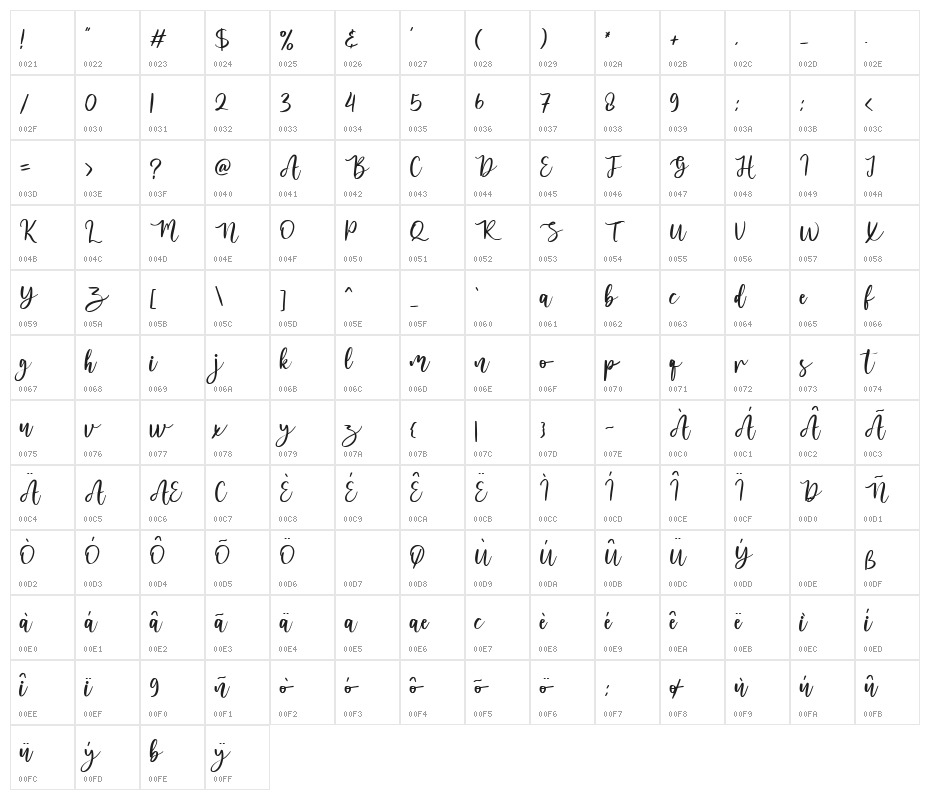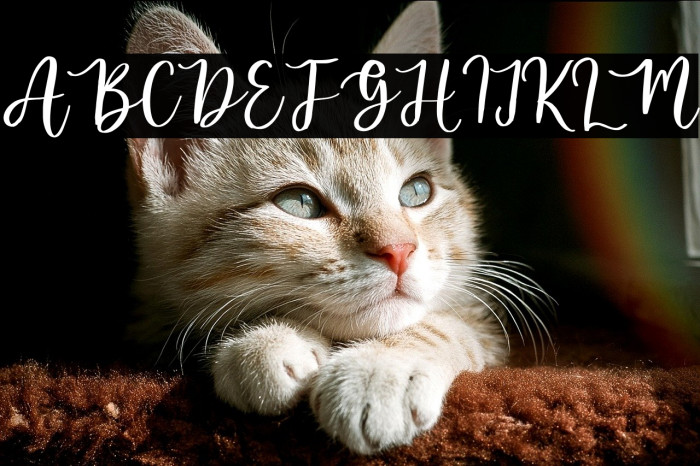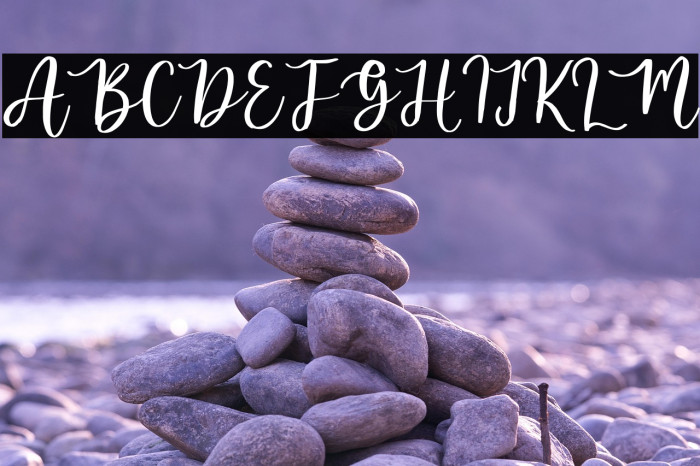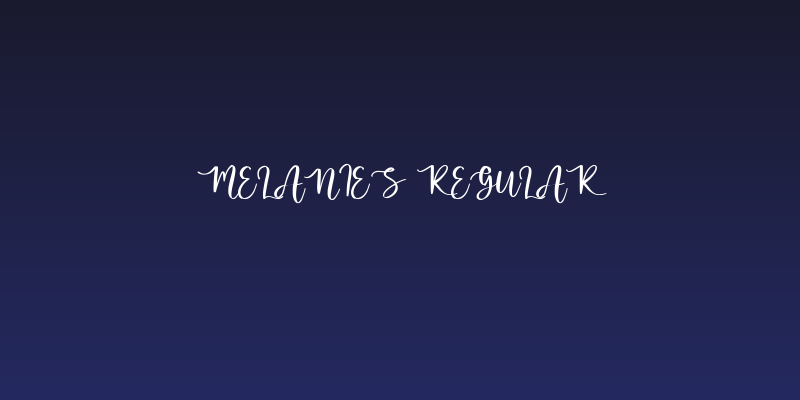
melanies Regular Font
melanies Regular Description
This font features a flowing, cursive style with elegant loops and swirls, giving it a handwritten appearance. The uppercase letters are bold and expressive, with a consistent slant that adds a sense of movement. The lowercase letters maintain the same fluidity, with some characters extending below the baseline, enhancing its artistic flair. Numbers are clear and maintain the same stylistic elements as the letters. Special characters are creatively integrated, maintaining the overall aesthetic. This font is perfect for adding a personal touch to any project.
| Proposed Projects | Ideal for wedding invitations, greeting cards, logos, and branding materials that require a personal, artistic touch. |